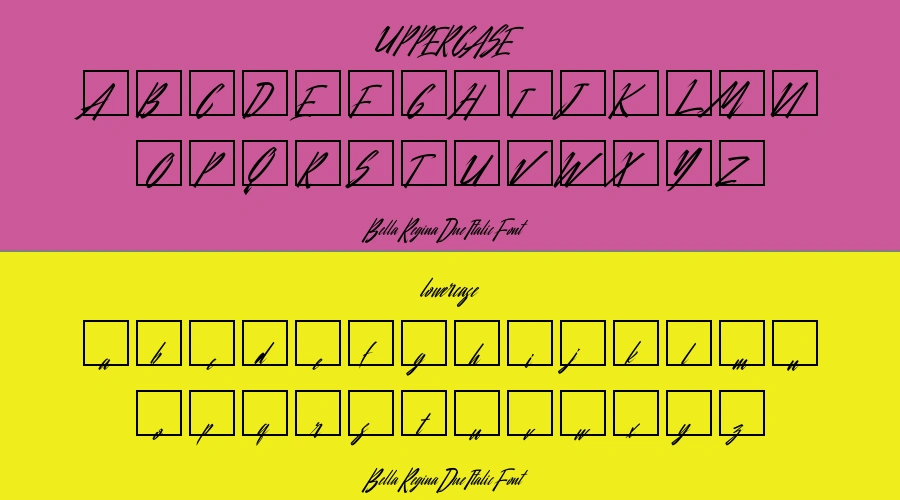
About Bella Regina Due Italic Font
Bella Regina Due Italic Font stands out for its distinctive combination of hand-drawn quality and visual rhythm. Ideal for advertising campaigns, it provides the functionality and system compatibility that professional projects demand. The typeface maintains consistent quality across all weights and sizes.
Key features include refined organic curves and practical isolated forms, enhancing typographic expression. In exhibition materials applications, Bella Regina Due Italic Font demonstrates exceptional consumer preference. The terminal style and design heritage contribute to its distinctive character and professional appeal.